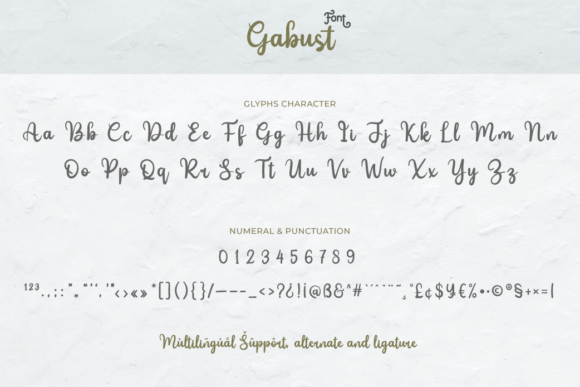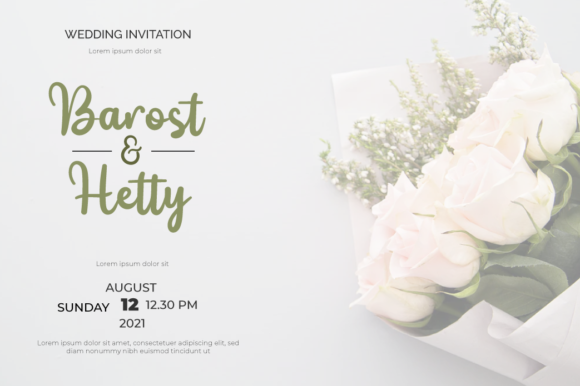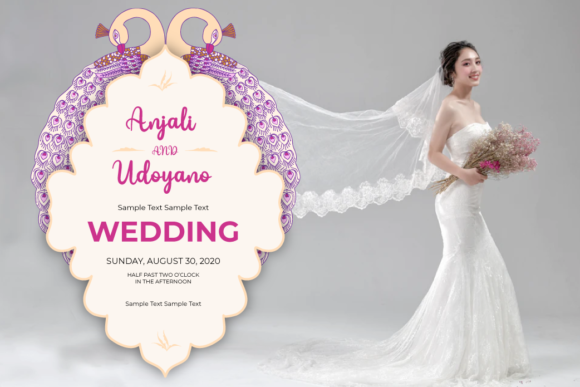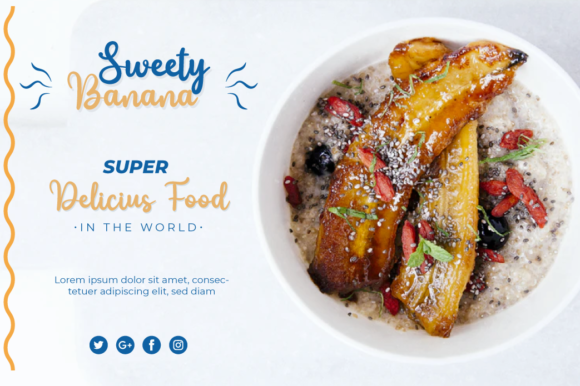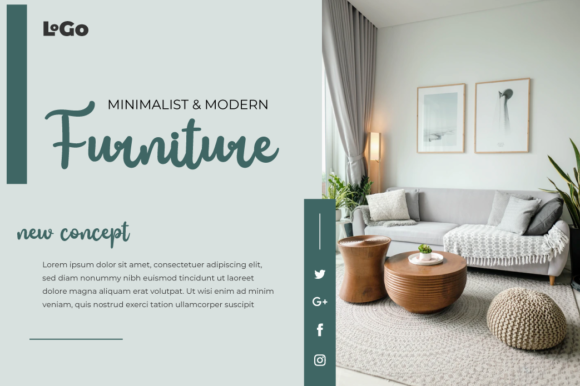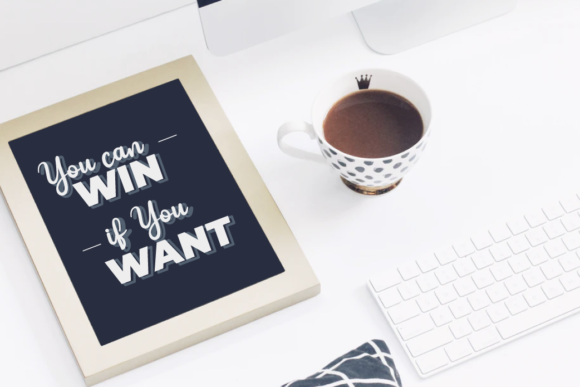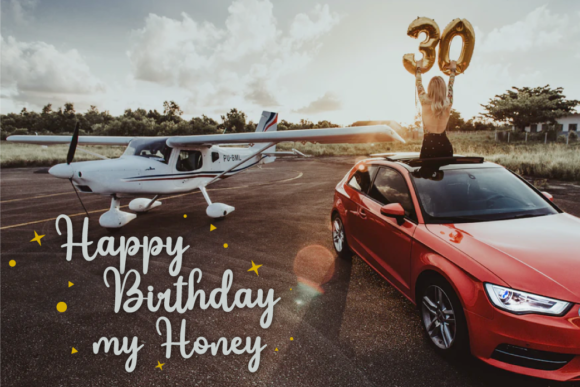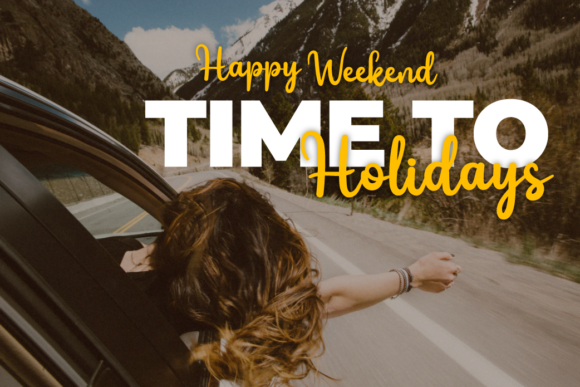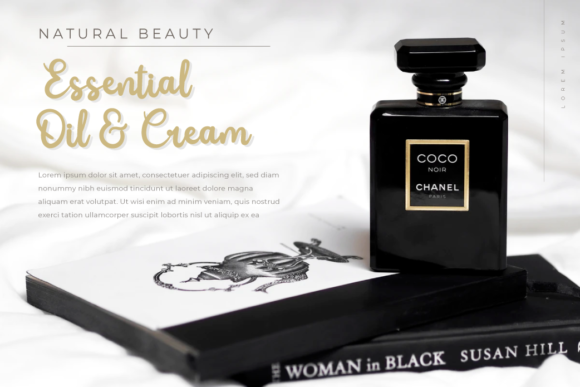
Gabust Font
About Gabust Font
Gabust is a charming and delicate handwritten font that exudes elegance and romance. With its soft and graceful letterforms, this font is perfect for creating stunning wedding invitations, heartfelt cards, and any design that requires a romantic and personalized touch.
The beauty of Gabust lies in its intricate details and flowing strokes. Each letter is crafted with care, creating a sense of delicacy and refinement. The gentle curves and subtle flourishes give the font a romantic and sophisticated feel, making it a perfect choice for capturing the essence of special moments and celebrations.
Whether you’re designing wedding stationery, love letters, or heartfelt quotes, Gabust will add a touch of elegance and intimacy to your designs. Its graceful and dainty style creates a sense of warmth and tenderness, setting the tone for heartfelt messages and heartfelt occasions.
Gabust’s versatility extends beyond wedding-related designs. It can also be used in various contexts that require a touch of romance and sophistication. From branding projects to social media graphics, Gabust will add a personalized and intimate feel to your designs, making them stand out with their unique charm.
This font is perfect for expressing emotions and creating a heartfelt connection with your audience. Its delicate and joyful style brings a sense of intimacy and romance to your designs, making them memorable and meaningful. The intricate details and elegant letterforms of Gabust make it a beautiful choice for capturing the essence of love and creating designs that leave a lasting impression.
In summary, Gabust is a sweet and delicate handwritten font that adds a touch of elegance and romance to your designs. Its dainty and joyful style makes it ideal for wedding invitations, cards, and any design that requires a romantic and personalized touch. Let Gabust infuse your designs with its grace and beauty, and create unforgettable moments for your audience.